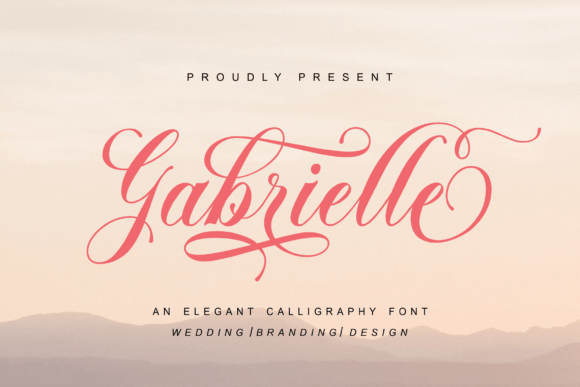
Embrace the allure of Gabrielle Font, an exquisite calligraphy script that exudes romance and sophistication. Indulge in the beauty of its flowing curves and delicate strokes, meticulously crafted to evoke the essence of love and passion. Experience the magic of words as they dance across the page, infused with a charm that captivates the senses. Let Gabrielle Font be your muse, transforming your creative visions into masterpieces that whisper tales of affection and desire.
With its PUA encoding, Gabrielle Font grants you effortless access to a treasure trove of glyphs and swashes, allowing you to unleash your creativity without bounds. Embark on a journey of artistic expression, where every letter becomes a brushstroke of love, painting emotions onto the canvas of your designs. Whether you're crafting heartfelt invitations, designing enchanting logos, or weaving captivating social media graphics, Gabrielle Font will elevate your creations to new heights of elegance.
Step into a world where words become art, where messages are imbued with a touch of enchantment. Gabrielle Font is the perfect companion for those seeking to capture the essence of love, friendship, and heartfelt emotions. Its versatility knows no bounds, as it effortlessly blends with a myriad of design aesthetics, from classic and vintage to modern and contemporary. Allow Gabrielle Font to weave its magic into your designs, creating visual masterpieces that resonate with hearts and souls.
As you immerse yourself in the world of Gabrielle Font, you'll discover a symphony of emotions waiting to be expressed. Its romantic undertones ignite the passions of the heart, while its delicate strokes evoke a sense of tenderness and grace. Let your imagination soar as you explore the endless possibilities that await, transforming ordinary words into extraordinary expressions of love and affection.
With Gabrielle Font, every project becomes a labor of love, a testament to the power of human connection. Embrace the allure of this extraordinary typeface, and embark on a creative journey that will leave a lasting impression on all who behold it. Let Gabrielle Font be your guide, leading you to new horizons of artistic expression and emotional resonance.